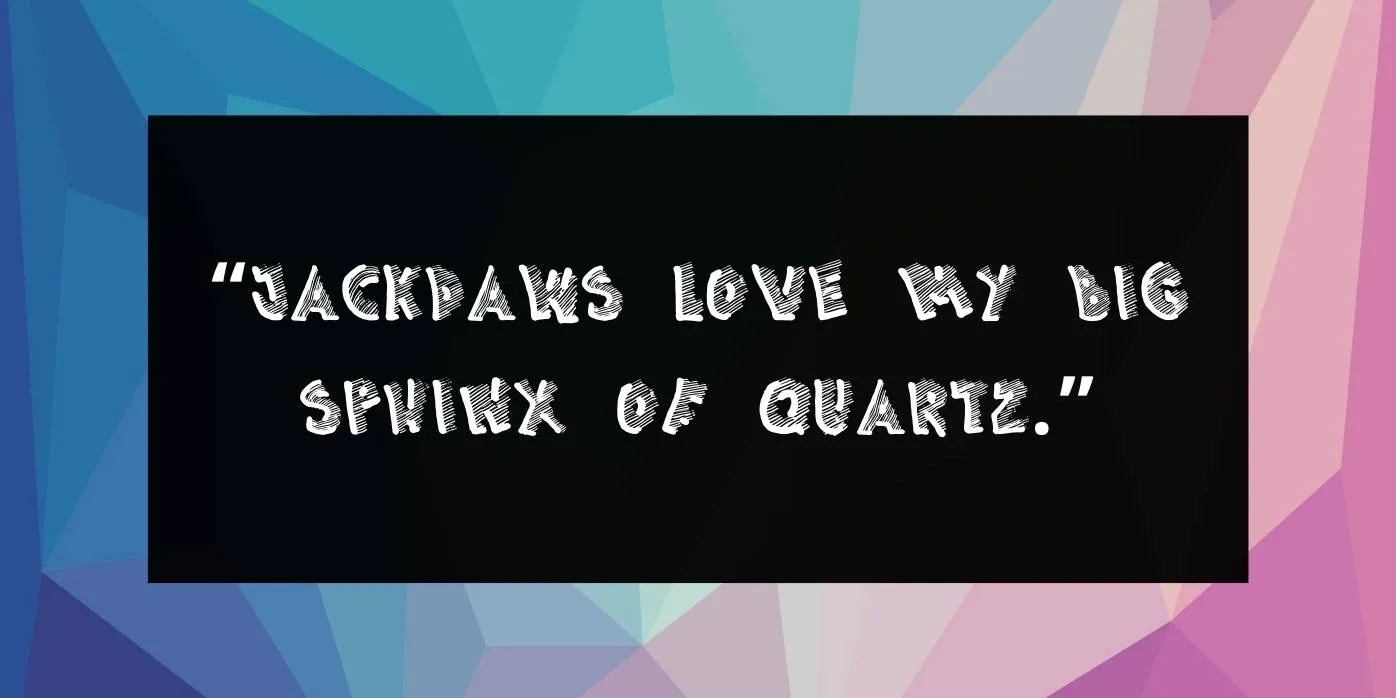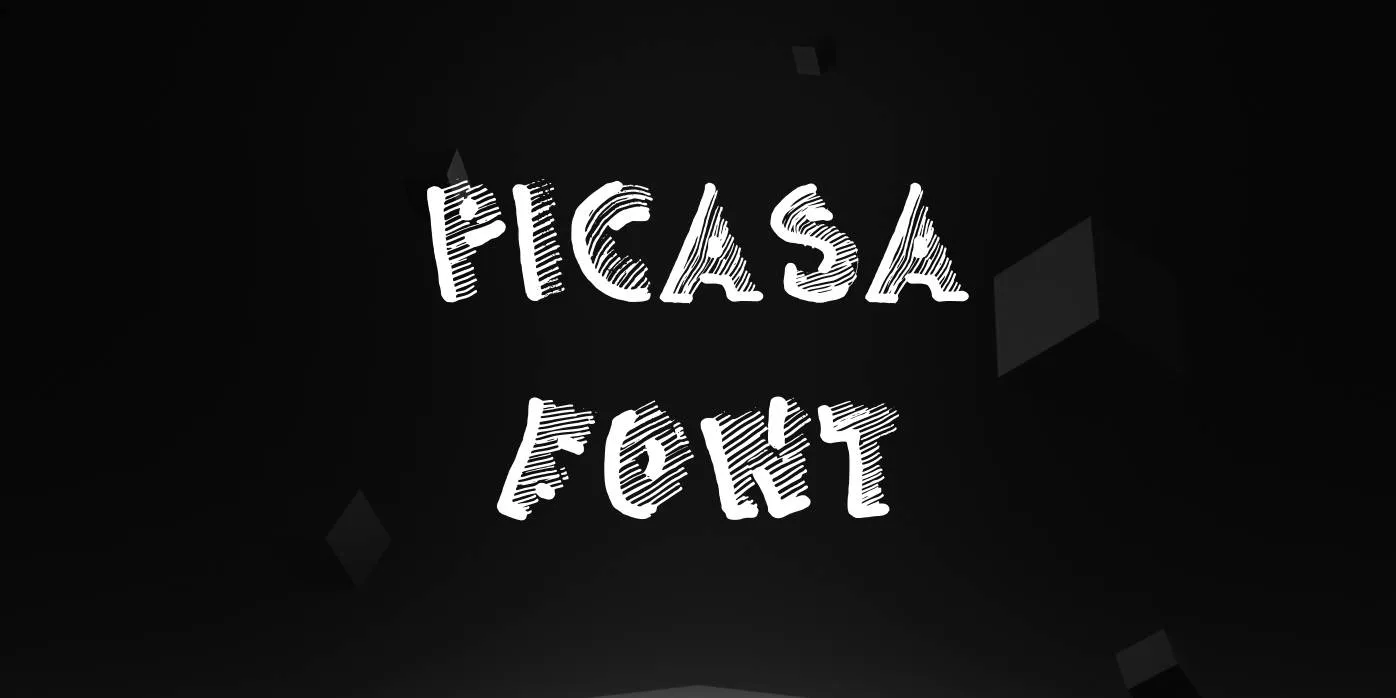
Picasa Font
Manuel Ramos has created a font like no other in Picasa. This typeface has been designed and programmed to meet the highest standards of typographical excellence. It has an incredibly versatile and unique aesthetic that is sure to stand out amongst the most recognized typefaces. With its classic, yet modern style, the font fits perfectly with the contemporary world of design.
In creating this font, Manuel Ramos has kept his focus on ensuring the versatility and versatility of the letterforms as well as their legibility. He has also modified some of the letterforms slightly in order to make them more distinctive and interesting. The beautiful curves, sharp angles, and elements of the characters have been carefully crafted and perfected so that they flow together seamlessly, creating exquisite shapes and rich textures. His goal was to create a typeface that would be appropriate for both printed and digital applications.
This font is also paired with the coquette font. The font also includes a variety of alternative characters, giving it the ability to work with a wide range of projects. It features a broad selection of ligatures, swash capitals, and other ligature variants which can be utilized to create dynamic and unique designs. Its character set is vast, including more than one thousand glyphs.
Usage Picasa Font is a custom and exclusive font that was mainly developed for various online services and web designs. This font was very useful in creating a unique and distinct identity for Google and its related services. It has a very simple yet effective design which made it really popular among web and graphic designers since its release in 2010. The font was said to be inspired by the early Greek alphabet and also include special characters and some exotic script forms.
It has been used for many websites, documents, logos, and other similar applications. The Picasa font looks friendly and inviting, which can make all sorts of projects more attractive. It is also a great choice for logos and branding because it is easily recognizable and highly readable. It contains all the characters needed to make any text look professional and stylish.
You can pair it with the combination of motter ombra font. Its large x-height makes sure that any typeface will not look too small or blurry. This font is also easy to use and looks good when used in larger sizes. It is available with OpenType features which can be used to switch between styles so you can access the exact style you need.
FAQs! Is Picasa Font being similar to VTKS Encantar Font? Yes, that font is similar to VTKS Encantar Font but The Picasa font looks friendly and inviting, which can make all sorts of projects more attractive. What is Picasa Font called now?
Manuel Ramos has created a font like no other in Picasa. It has an incredibly versatile and unique aesthetic that is sure to stand out amongst the most recognized typefaces. What font is similar to Picasa Font? There are many typefaces that are similar to this font, but many of them are VTKS Encantar Font, Sippin on Sunshine Font, etc.